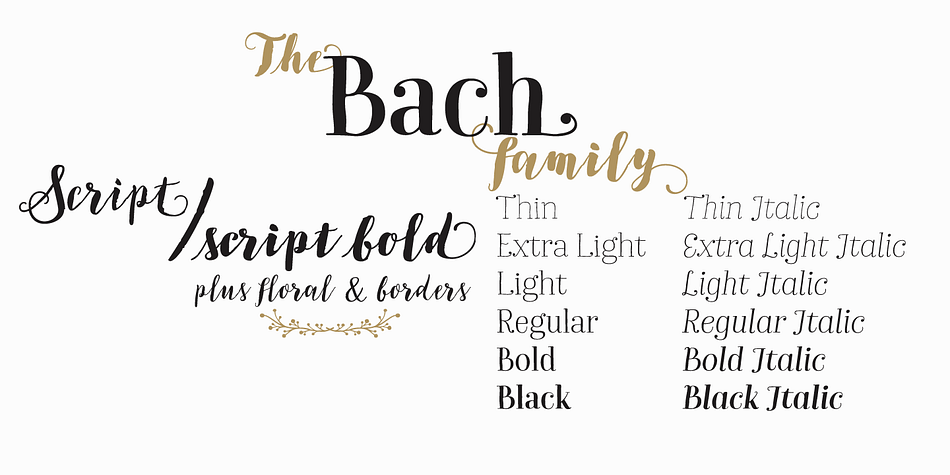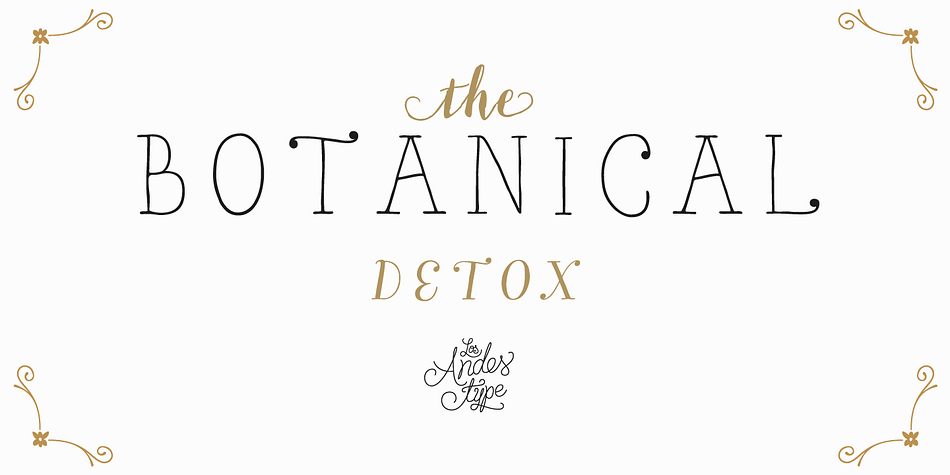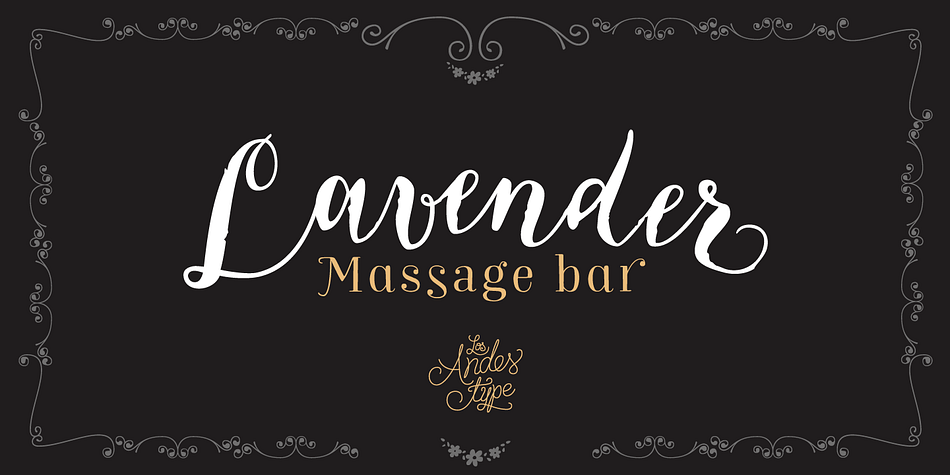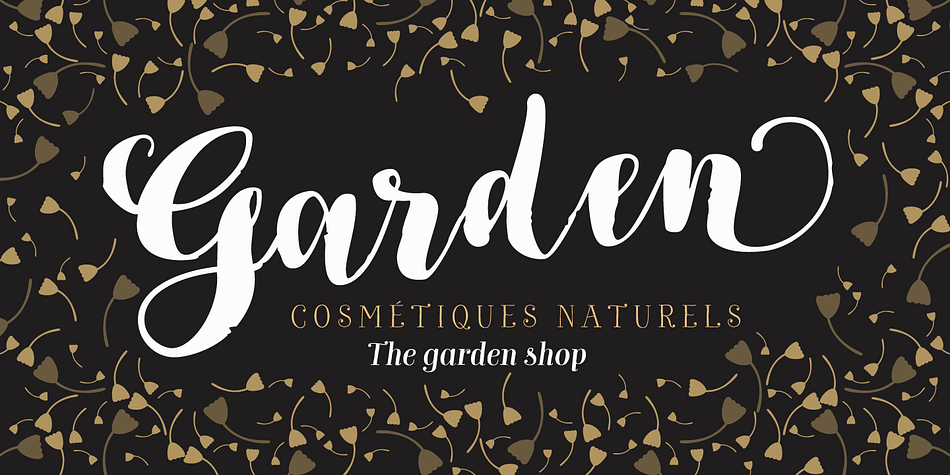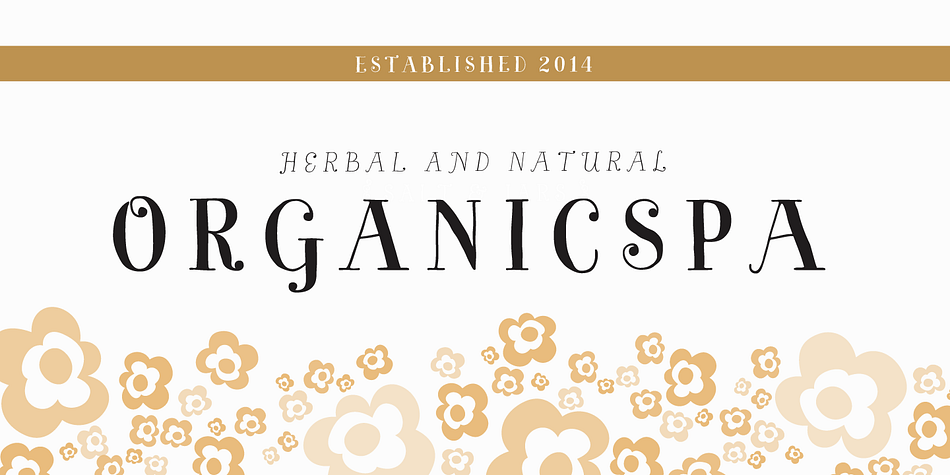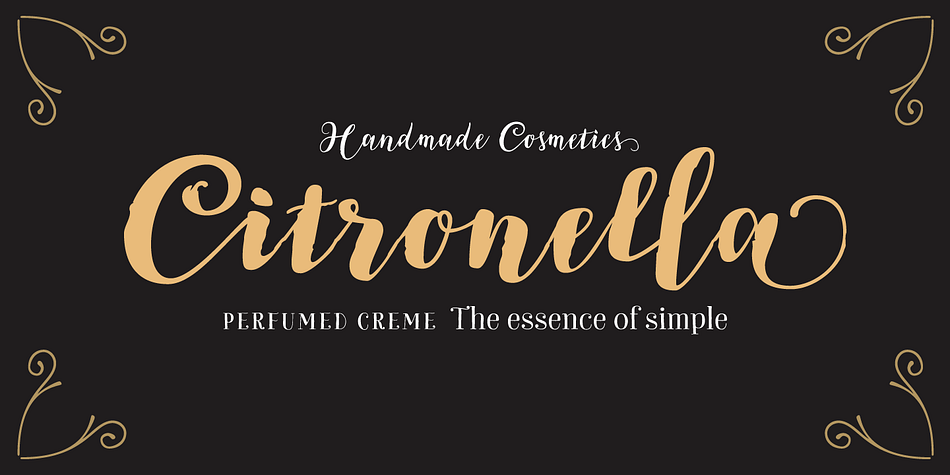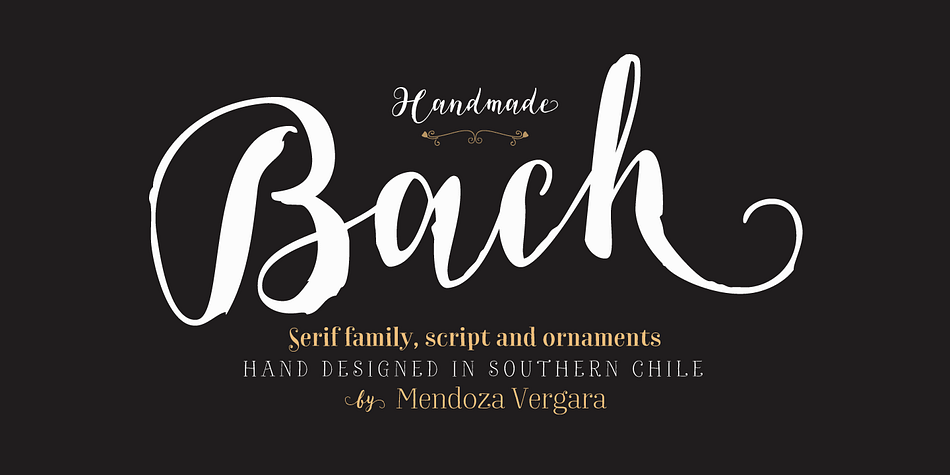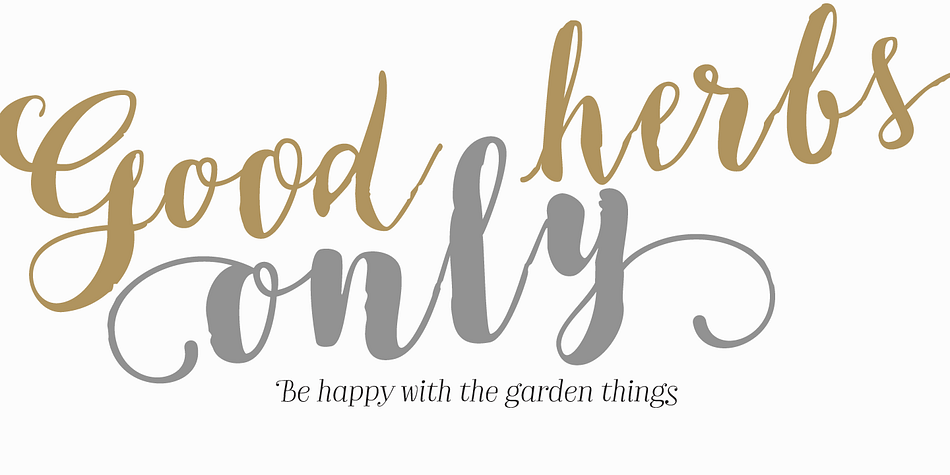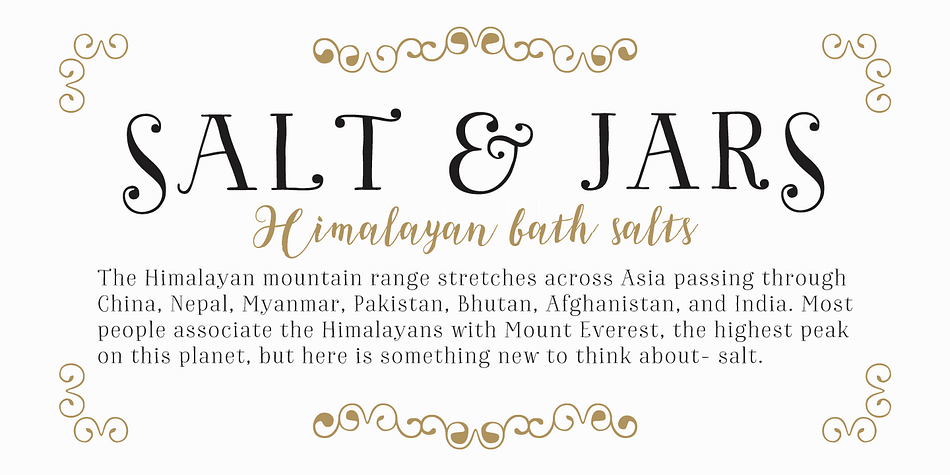
Designed by Mendoza Vergara, Bach is a multiple classification font family. This typeface has sixteen styles and was published by Los Andes Type.
We have grown a new flower in our Garden, but this time, in a more emotional way, capturing its vibrations and using them to create a fresh handmade typeface: ‘Bach’, a display type system inspired by the new lifestyle trends that look to go back to basics and increase the value of old natural healing methods.
Bach comes in two styles: a 6-weight Serif font in regular and italic versions, and a 2-weight Script in regular and bold versions. Ornaments are also included!
Bach Script is based on the calligraphic catchwords set (handcrafted with brush pen) and the Serif version of the Garden typeface. This font is the perfect choice for labelling, packaging, illustrated books and posters.
Go back to nature and feel the vibration again, this time with Bach!
Bach is a Mendoza Vergara Studio design with the collaboration of Cecilia Mendoza in digital editing, under the supervision of Luciano Vergara and Coto Mendoza.